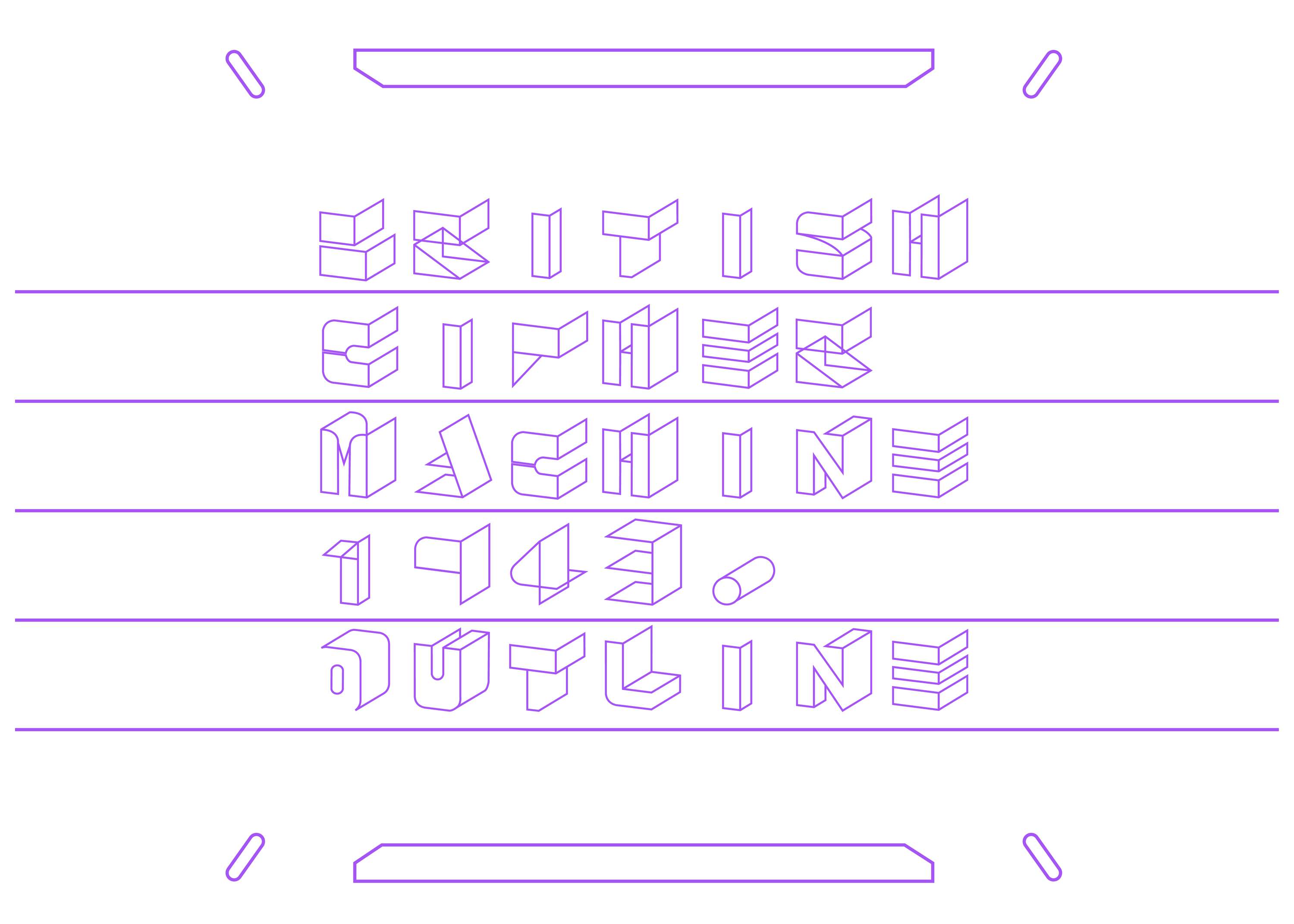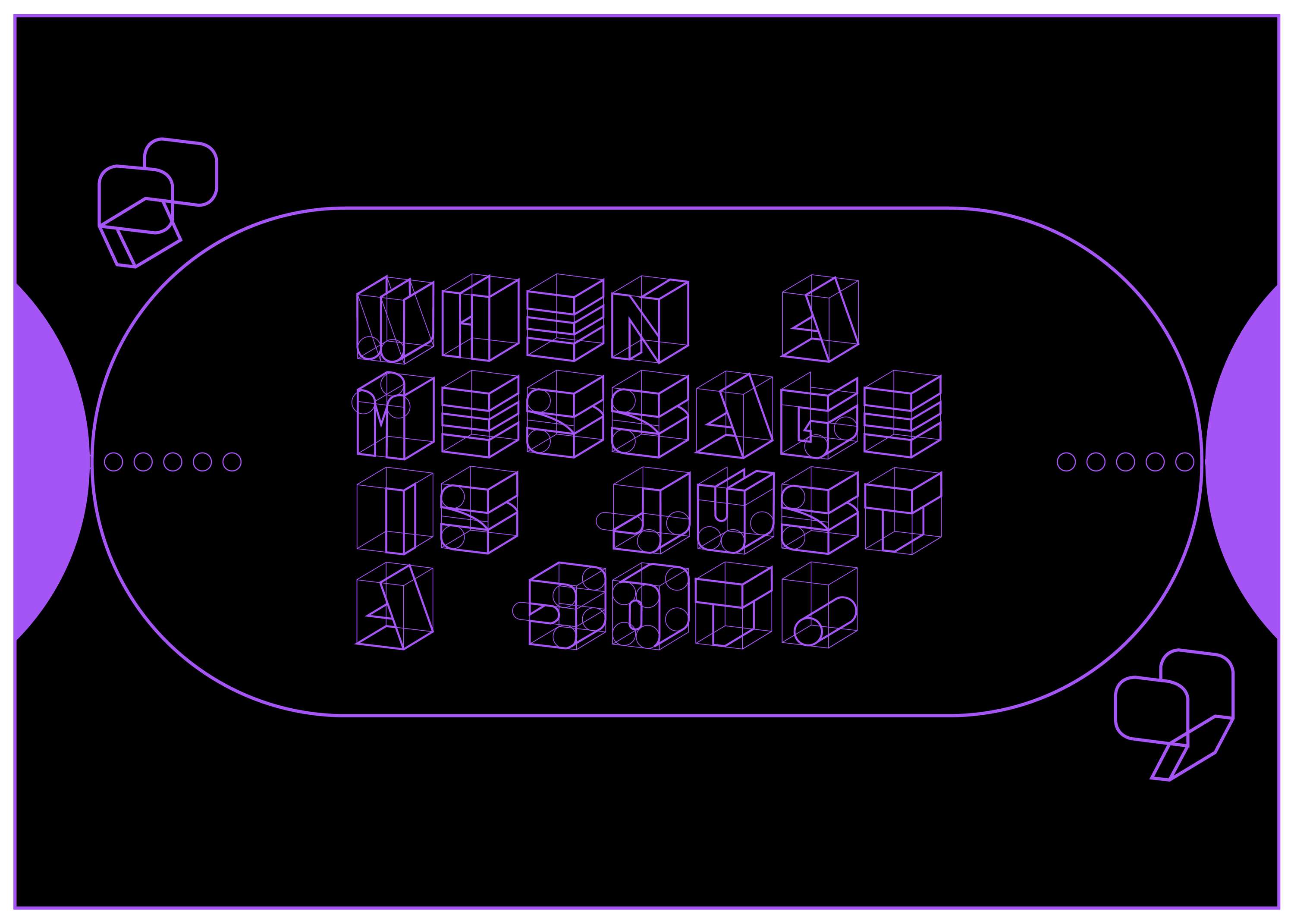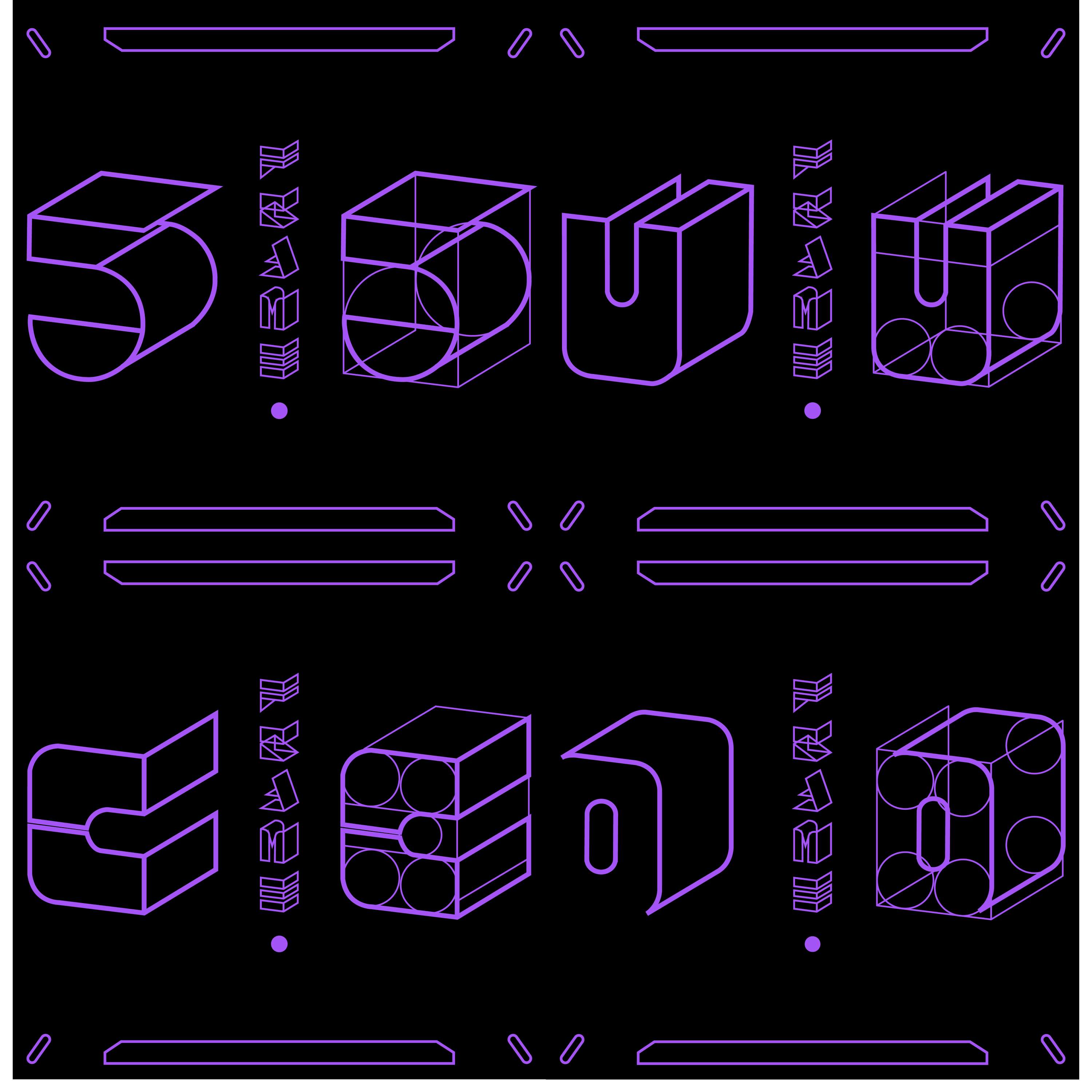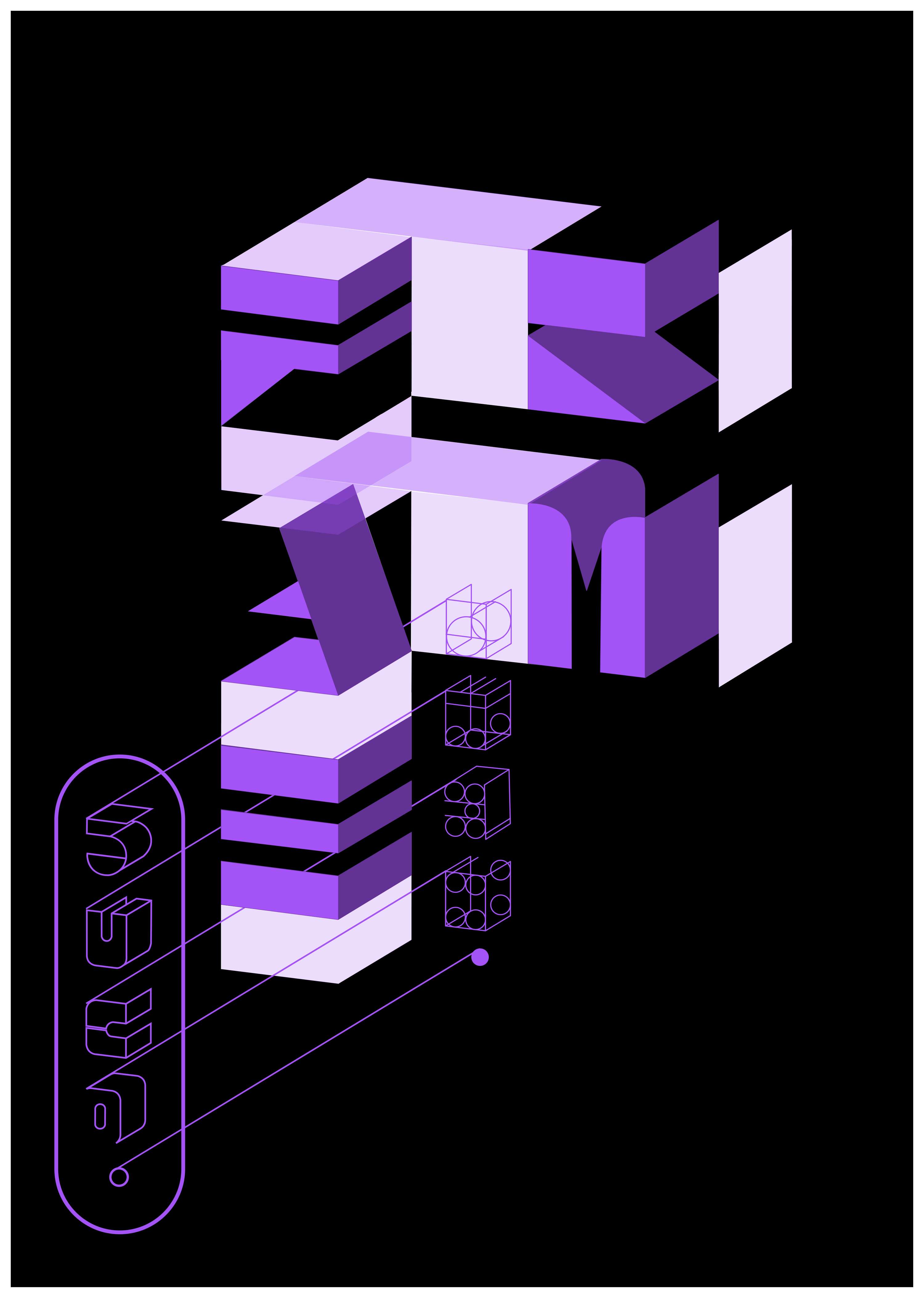
FRAME TYPEFACE
• Yong Wei Leong
‘Frame’ typeface is inspired by a British 5UCO cipher machine which was used in 1943. The wordmark was created to symbolically reflect the complicated machine, with puzzle-like elements showing depth through the box grid lines. It also contains the idea of the ultra-secret locked inside. Two versions of the font are available, the original and one with the box grid to create a visual combination with 2D and 3D.
FRAME DISPLAY POSTER
FRAME TYPEFACE by Yong Wei Leong